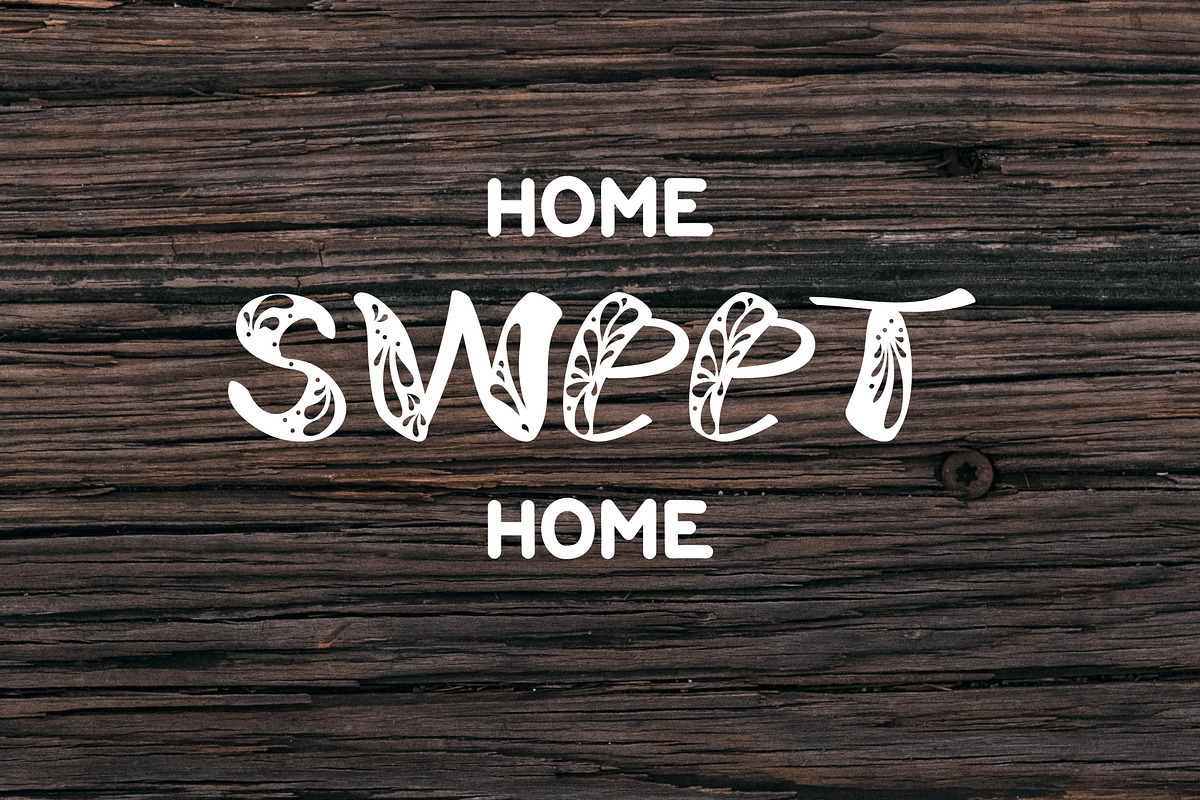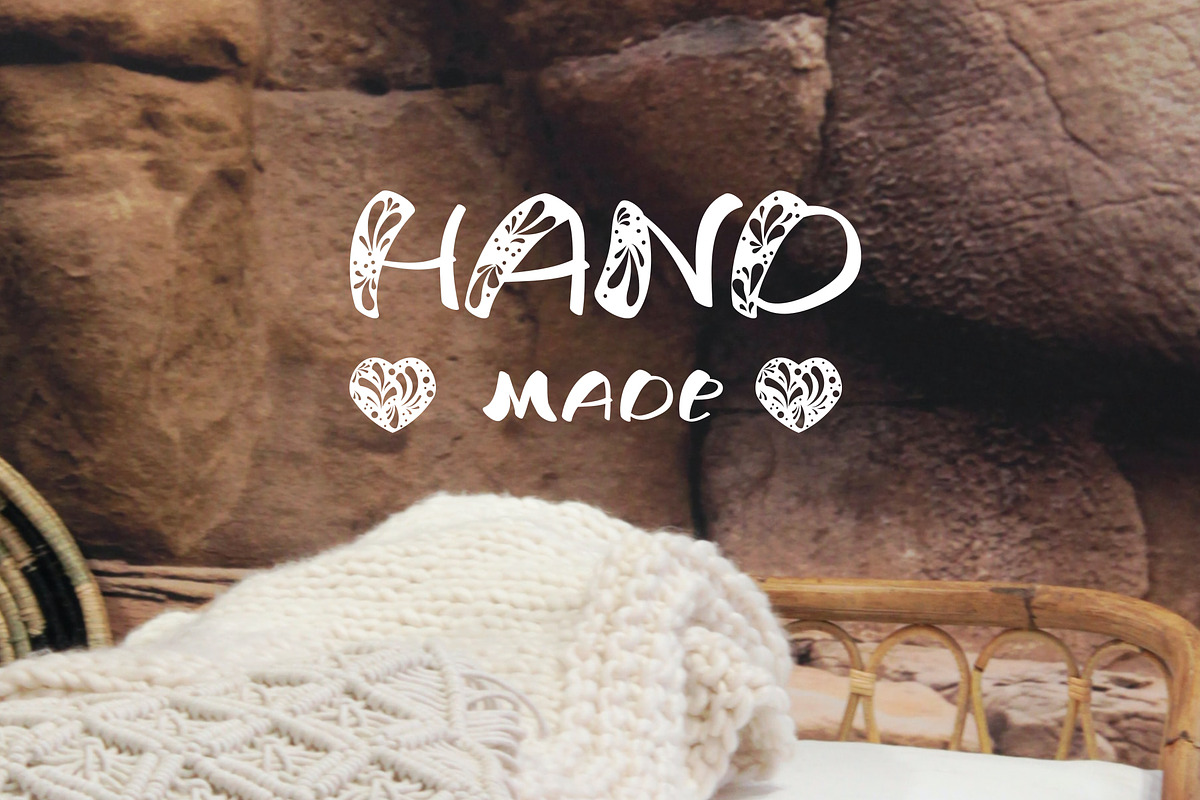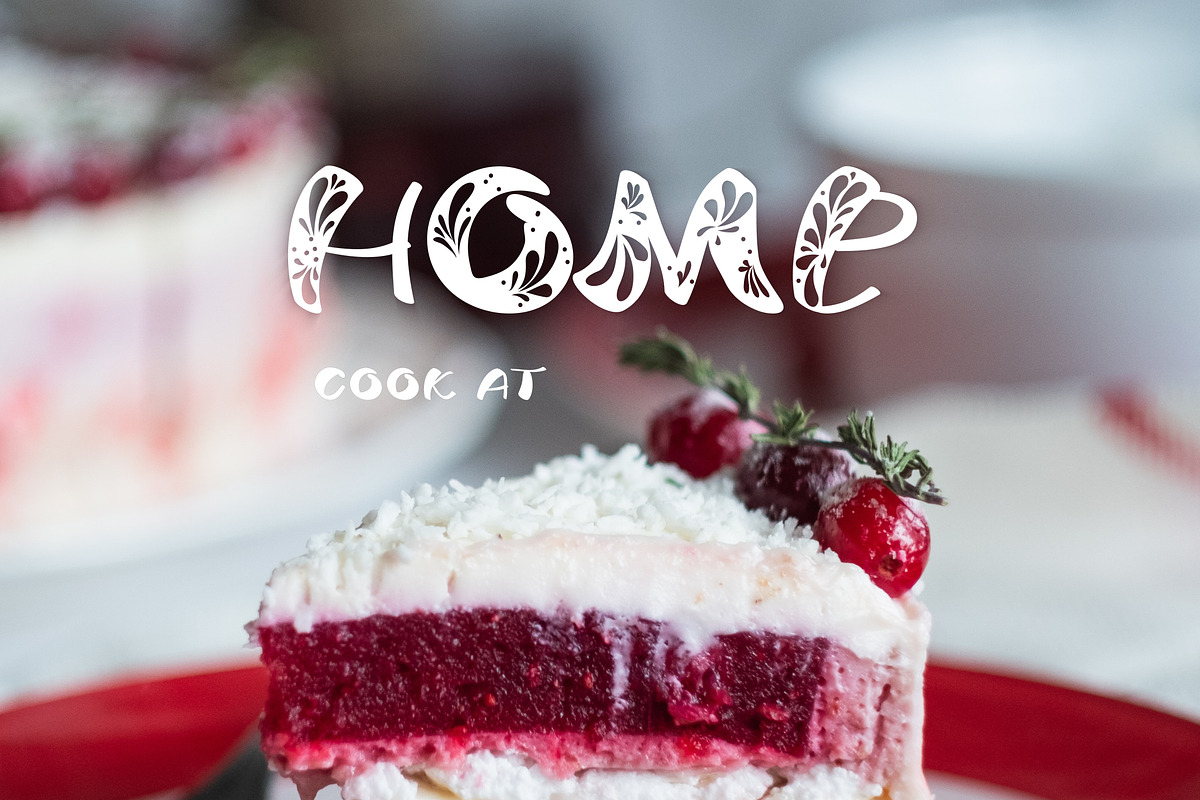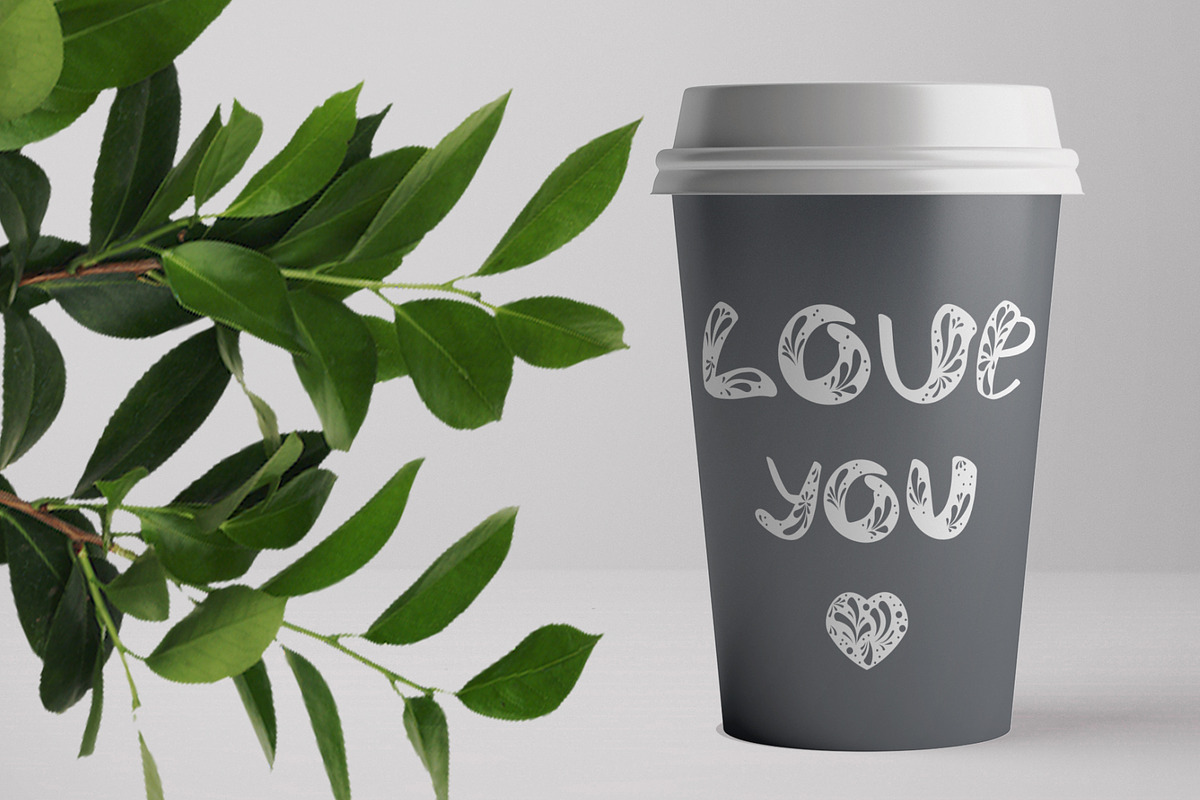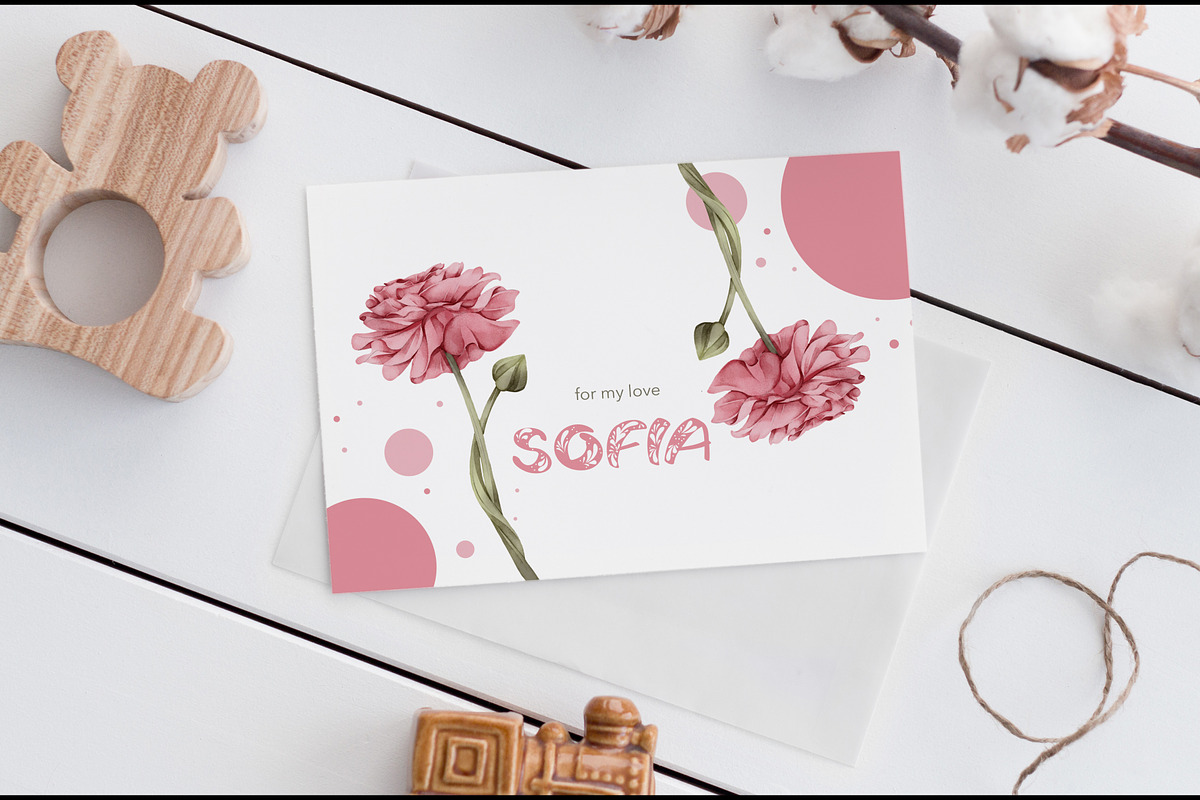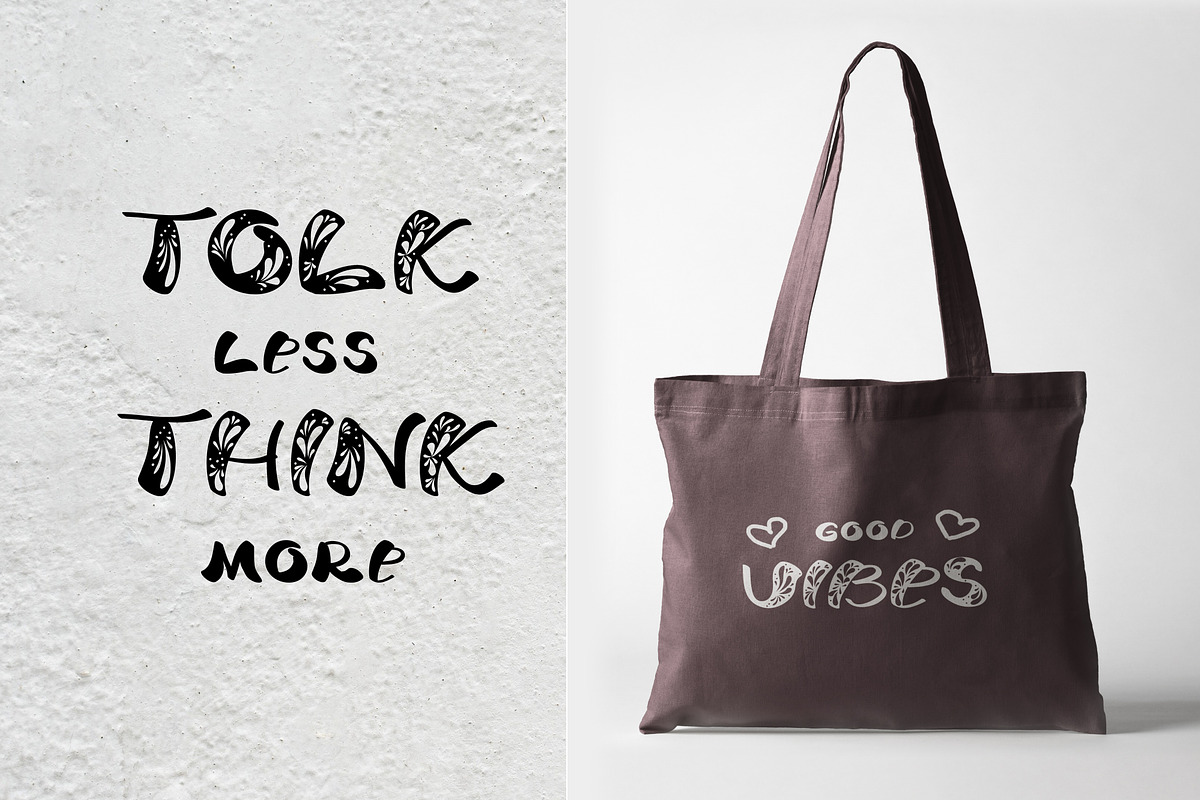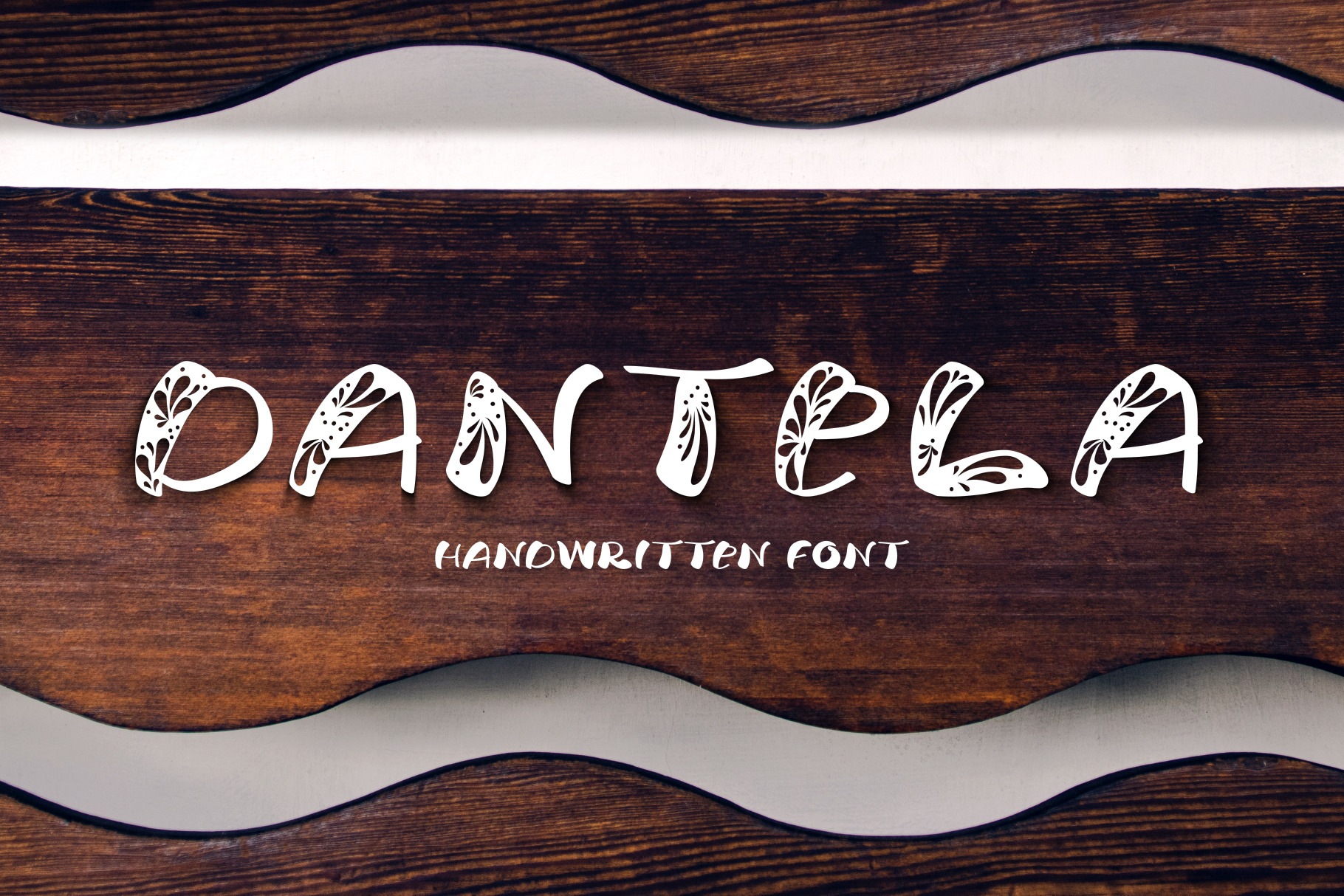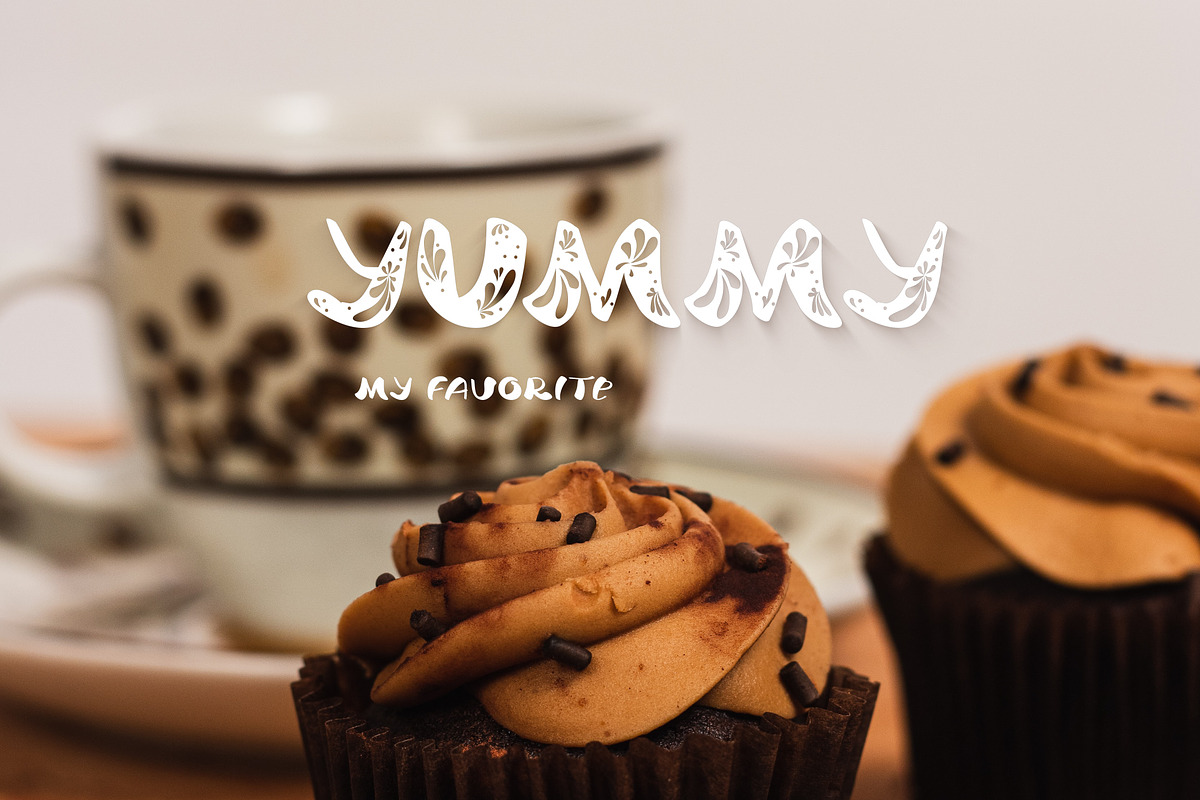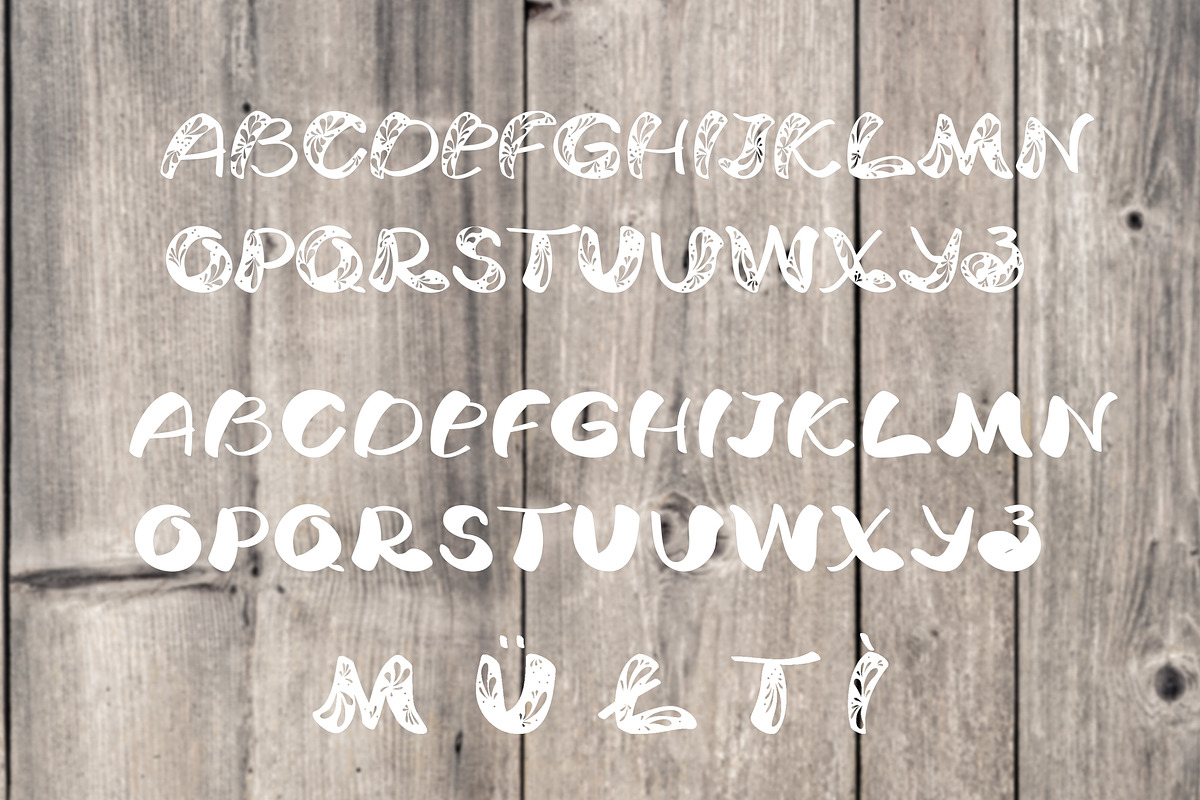
Dantela Font Duo
Decorative and Bold Fonts. (Multi)
PERFECT FOR:
- handmade products
- carts
- branding
- logo
- sweets products
- instagram quote text etc.